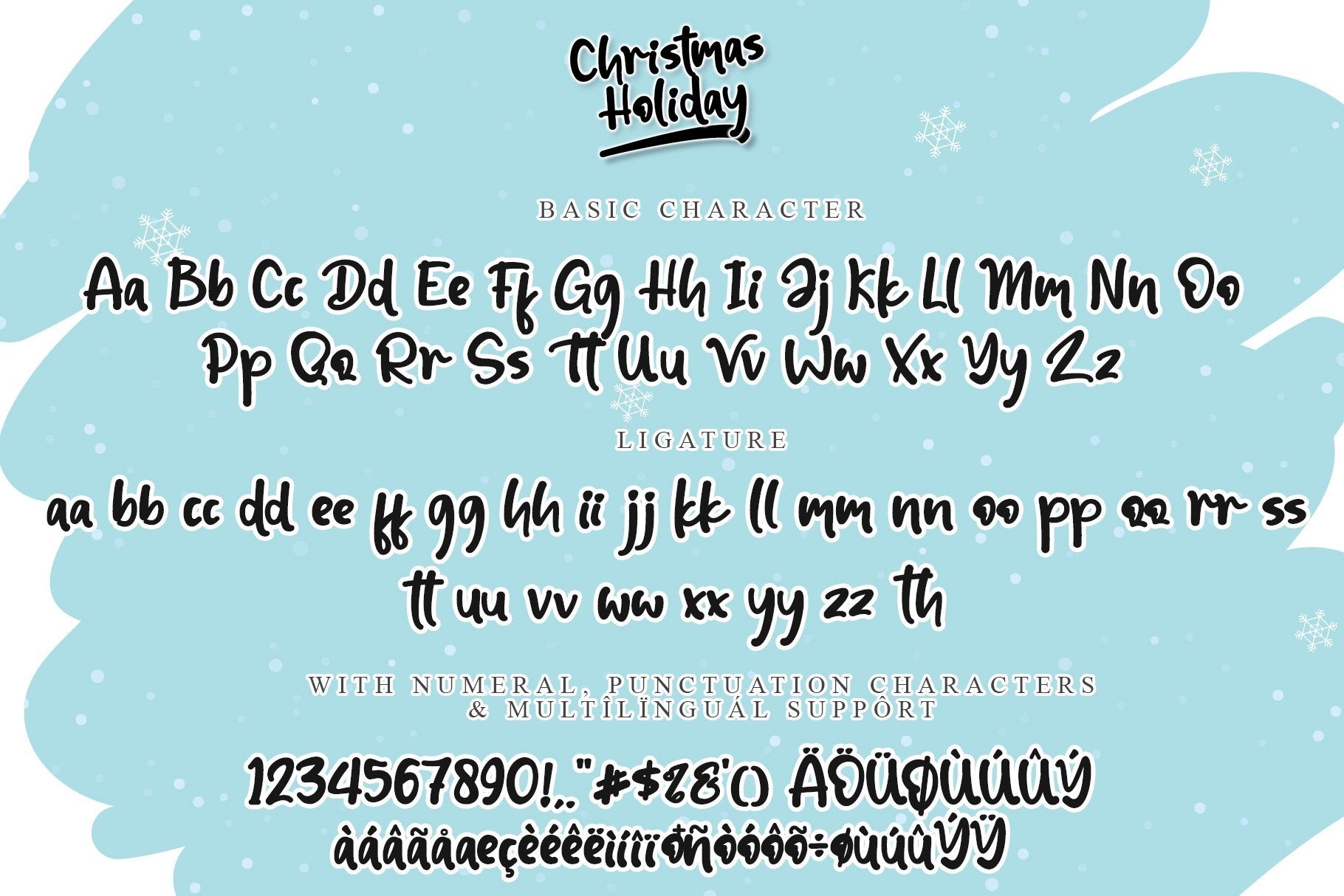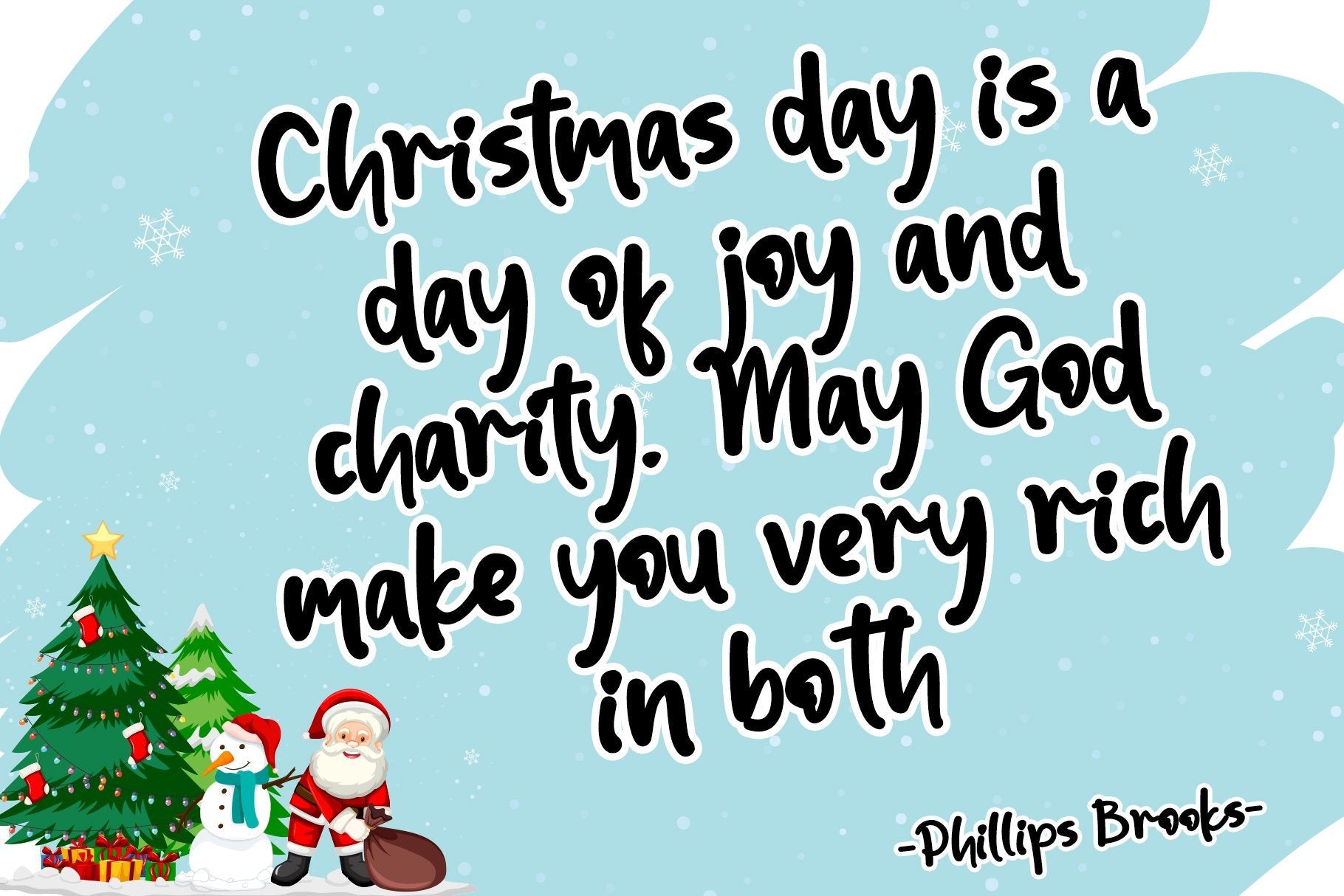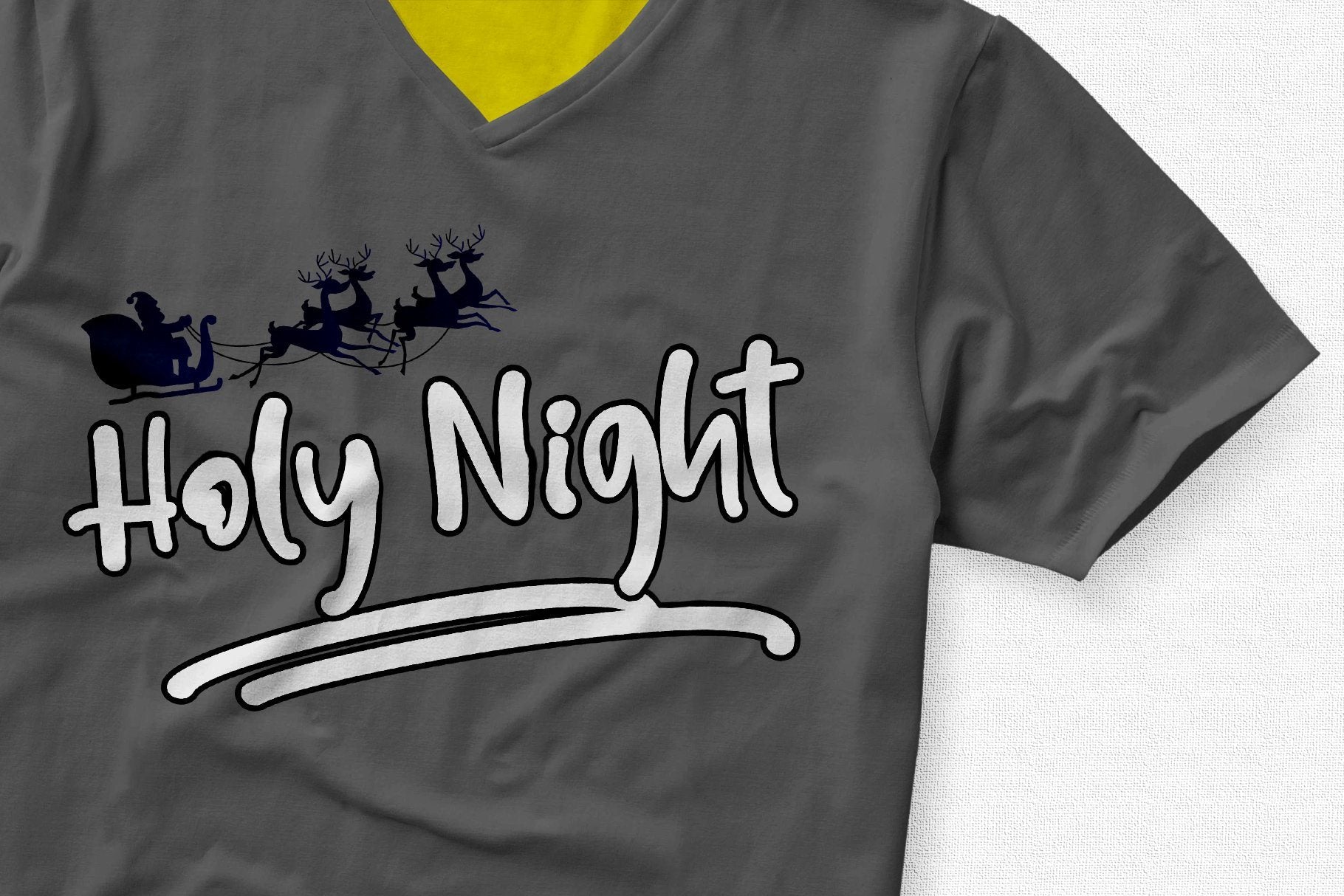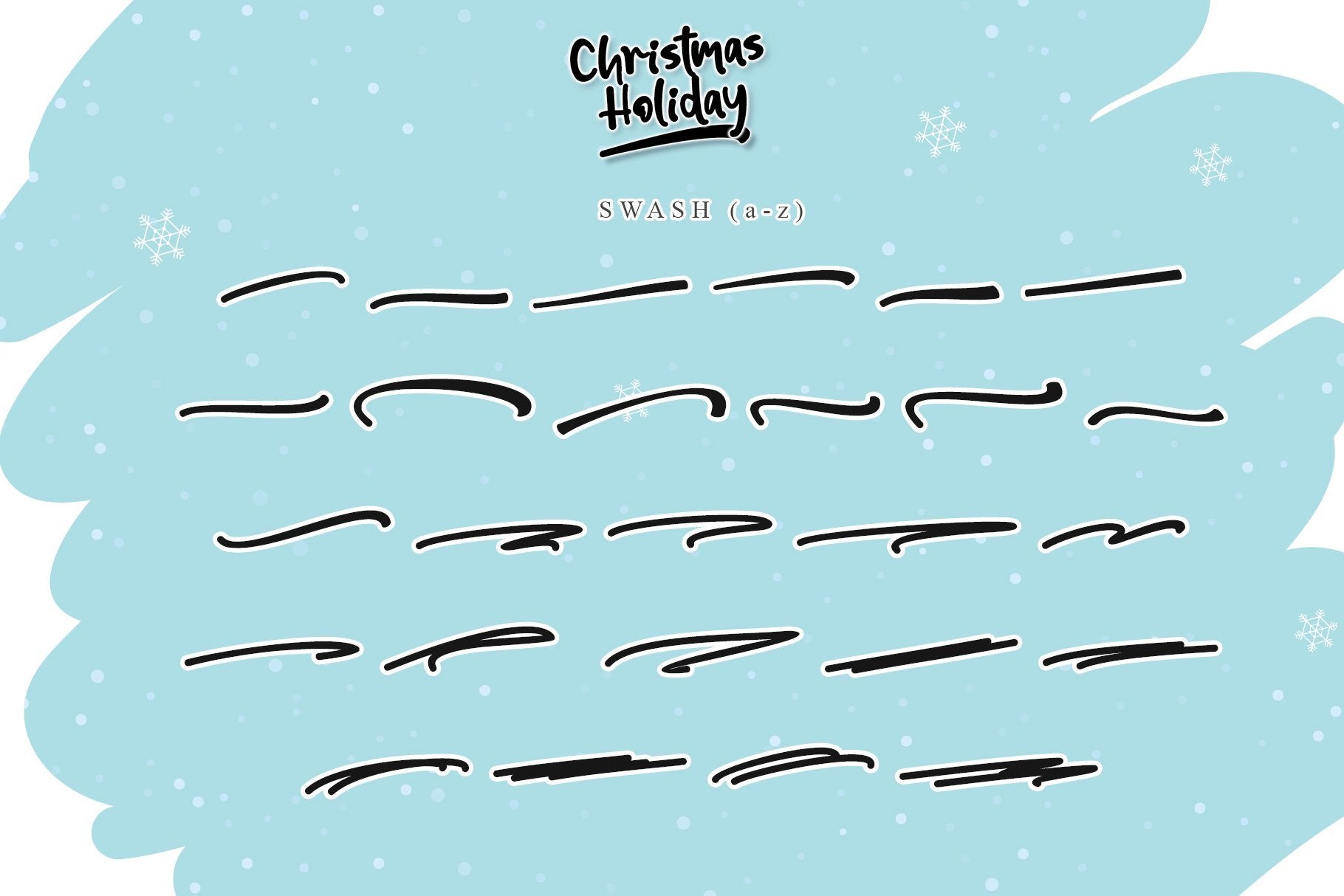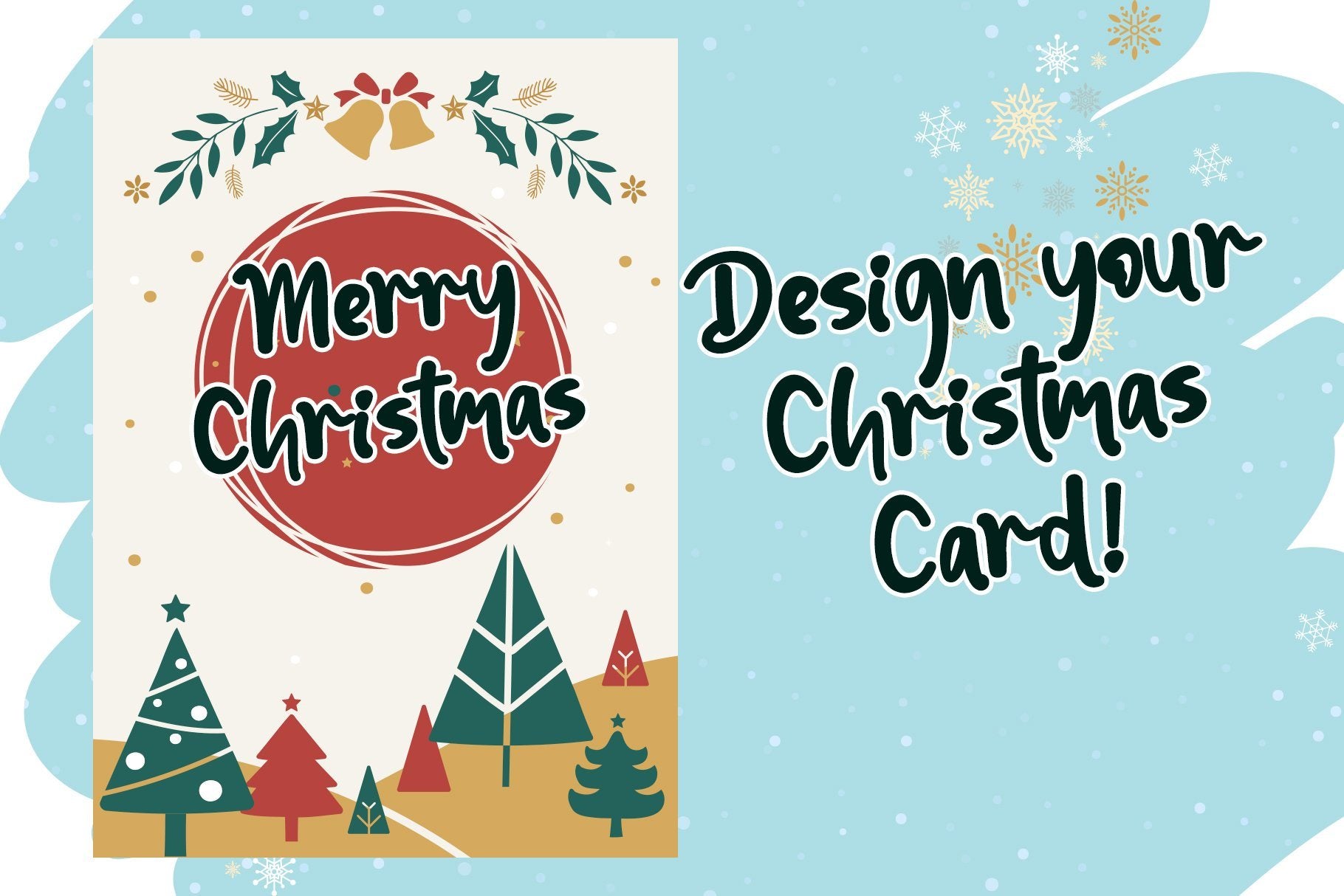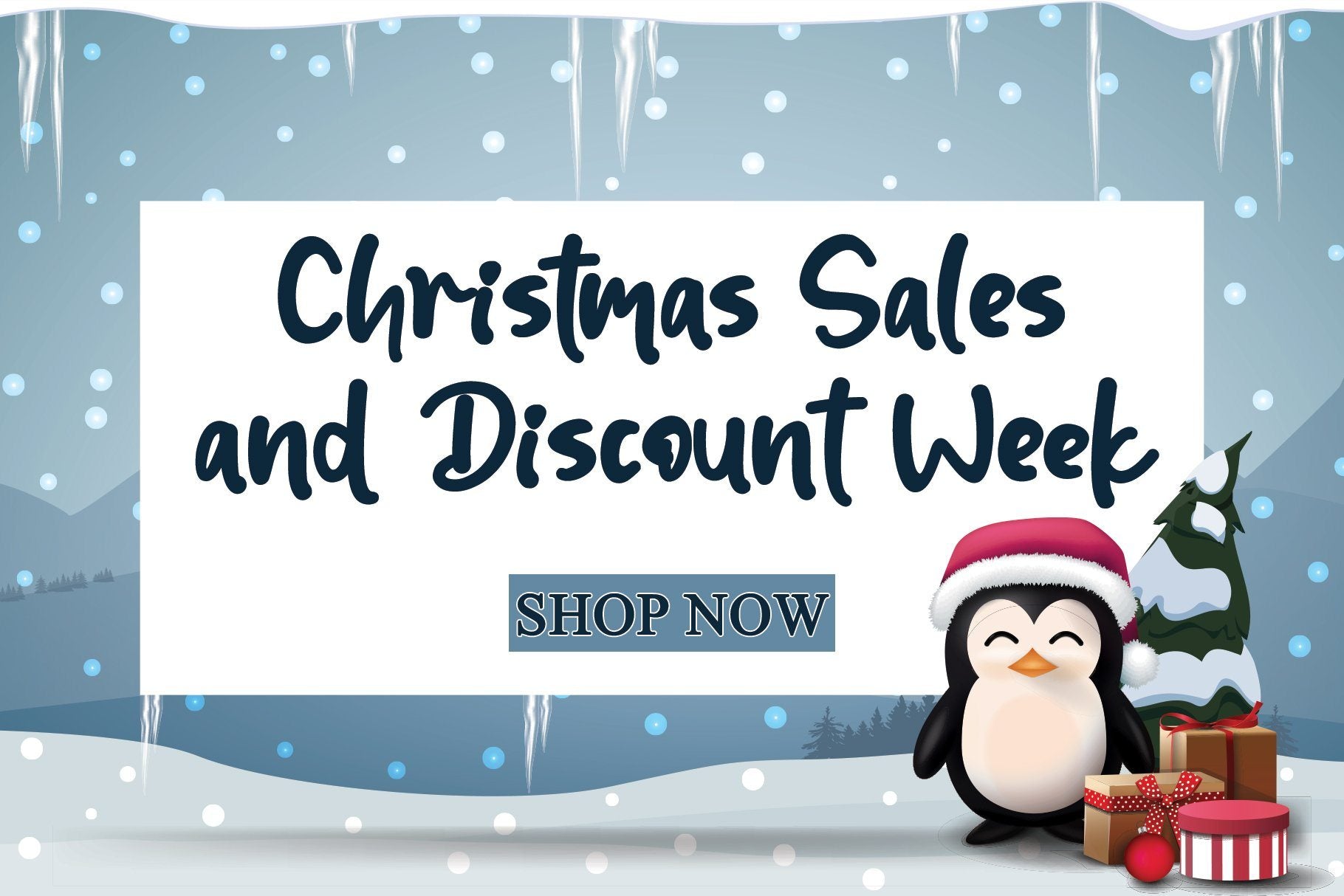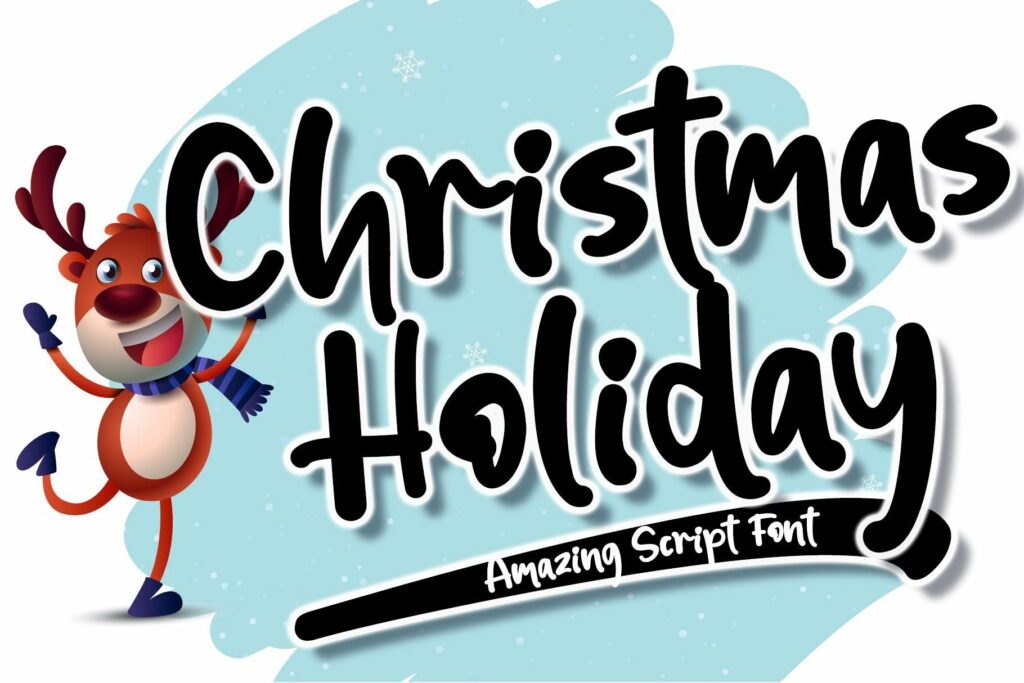
Christmas Holiday
About Christmas Holiday
Christmas Holiday is a fun and cute display font. It has a playful style and great readability. It’s perfect for Christmas cards, branding, stationery, blog design, custom art, custom stamps, custom embossers, book, apparel, packaging, headline, or much more! It will add a unique feel and looks stunning to any design project! This font is PUA encoded which means you can access all of the cute glyphs with ease! It also features a wealth of including ligatures.